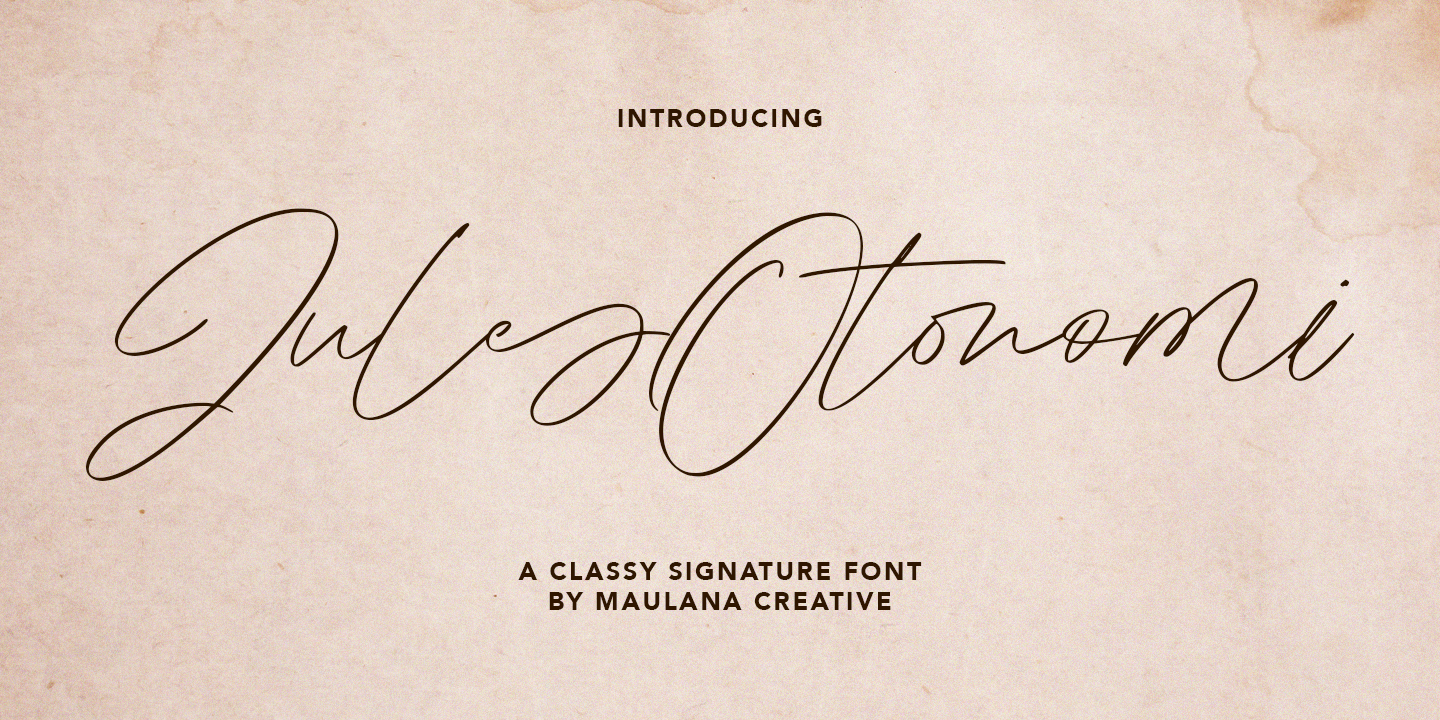
Jules Otonomi Font is perfect for independent artist portfolios, autonomous creative agencies, self-directed brand identities, personal blog headers, freelancer business cards, artistic exhibition posters, creative studio signage, and innovative startup branding. This distinctive typeface excels in creative independence applications, artistic freedom projects, and any design requiring authentic self-expression that celebrates individual creativity and autonomous thinking.
What makes Jules Otonomi Font exciting is its remarkable ability to embody creative independence and artistic autonomy through uniquely crafted letterforms that celebrate individual expression and creative freedom. The font features thoughtfully designed characters with subtle artistic irregularities and personal touches that convey authenticity and creative confidence, making it ideal for creators seeking to establish distinctive personal brands and communicate artistic independence. Its authentic character ensures memorable recognition of creative individuality.
Jules Otonomi Font family includes multiple weights and styles: Regular, Bold, Light, Medium, Italic variations, and artistic alternates with creative flourishes and expressive elements. Each family member maintains the distinctive autonomous character while offering comprehensive design flexibility for diverse creative projects, from subtle artistic accents to bold independent headlines that celebrate creative self-determination and artistic vision.
Whether you're designing independent creative portfolios or developing autonomous brand identities, Jules Otonomi Font Free Download provides the perfect typography solution for creative independence needs. This font transforms ordinary text into authentic artistic statements that communicate creative freedom and individual expression. Independent artists and creative entrepreneurs choose this typeface for its ability to convey artistic autonomy through personally crafted letterforms that inspire creative confidence and celebrate individual vision.